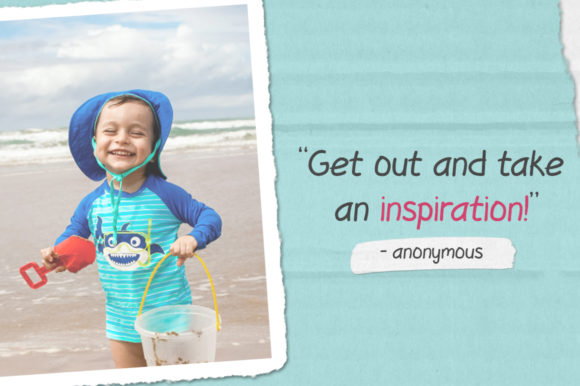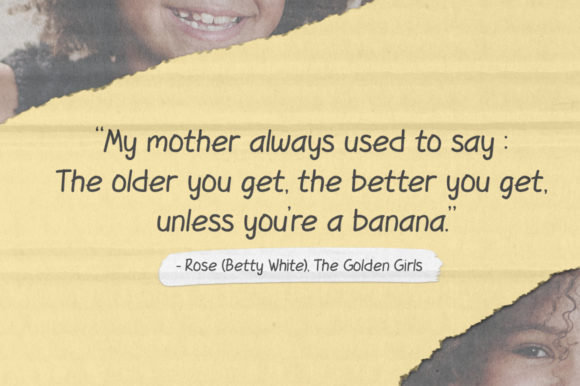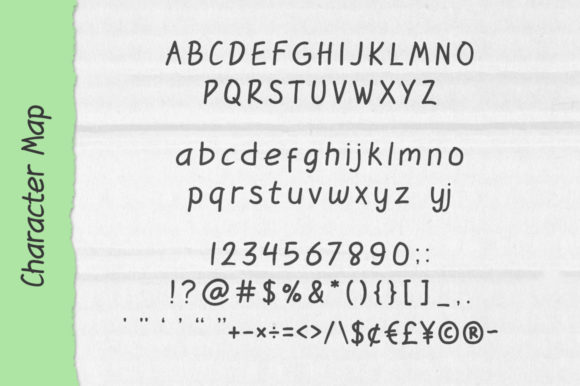
About Playkind Font
Playkind is quirky handwritten and fun style font. Good for doodles, illustrations, comics, rustic style design, social media, book covers, product packaging and more!
Great for adding a natural handwritten touch on your designs and projects!